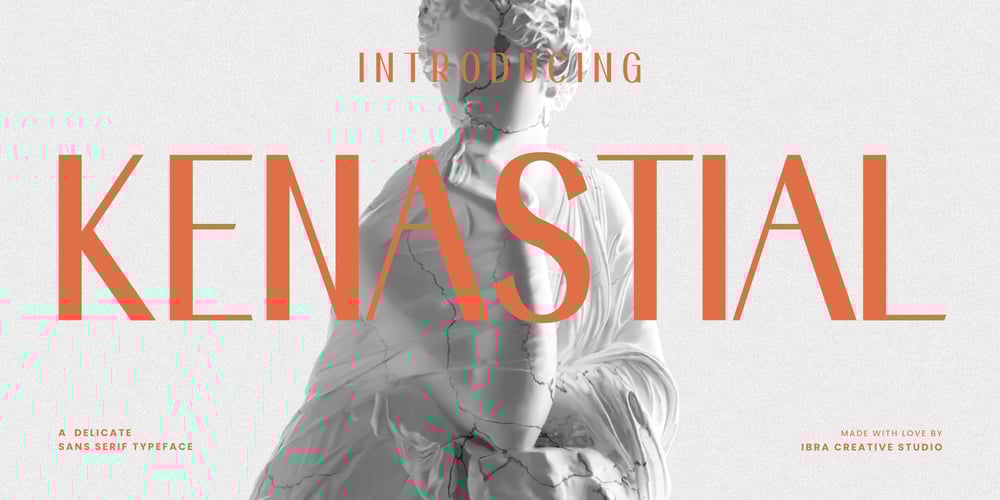
Kenastial Font Family was designed by Roisatul Azizah and published by IbraCreative. Kenastial contains 1 styles and family package options. Kenastial – A Delicate Sans Serif TypefaceKenastial, a delicate sans-serif typeface, epitomizes elegant simplicity with its refined and harmonious design. The font boasts clean lines and well-balanced proportions, creating a graceful and modern aesthetic that is both timeless and versatile. Kenastial’s subtly tapered strokes and gently rounded letterforms contribute to its delicate charm, making it an ideal choice for a wide range of design applications. Whether used in print or digital media, Kenastial exudes a sense of sophistication and readability, embodying a perfect blend of subtlety and style that sets it apart as a distinctive and enduring typeface.Kenastial is perfect for branding projects, logo, wedding designs, social media posts, advertisements, product packaging, product designs, label, photography, watermark, invitation, stationery, game, fashion and any projects.Fonts include multilingual support for; Afrikaans, Albanian, Czech, Danish, Dutch, English, Estonian, Finnish, French, German, Hungarian, Italian, Latvian, Lithuanian, Norwegian, Polish, Portuguese, Slovak, Slovenian, Spanish, Swedish.